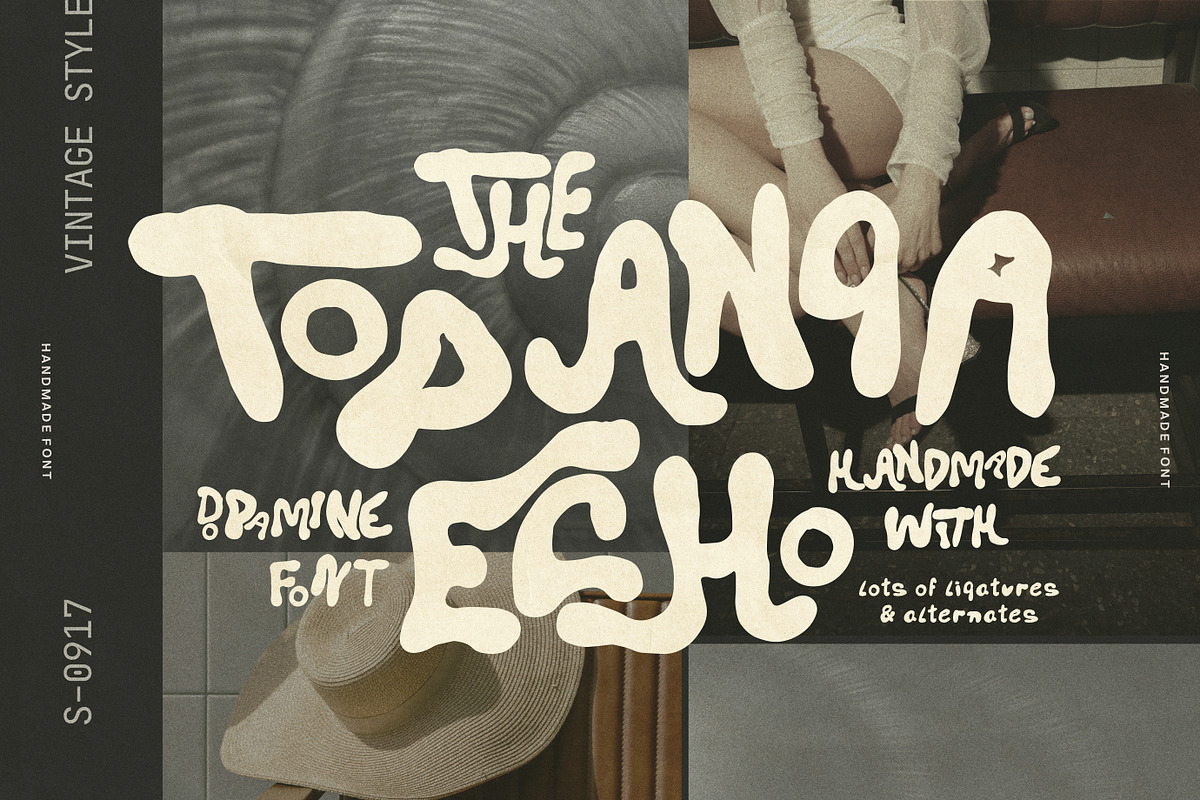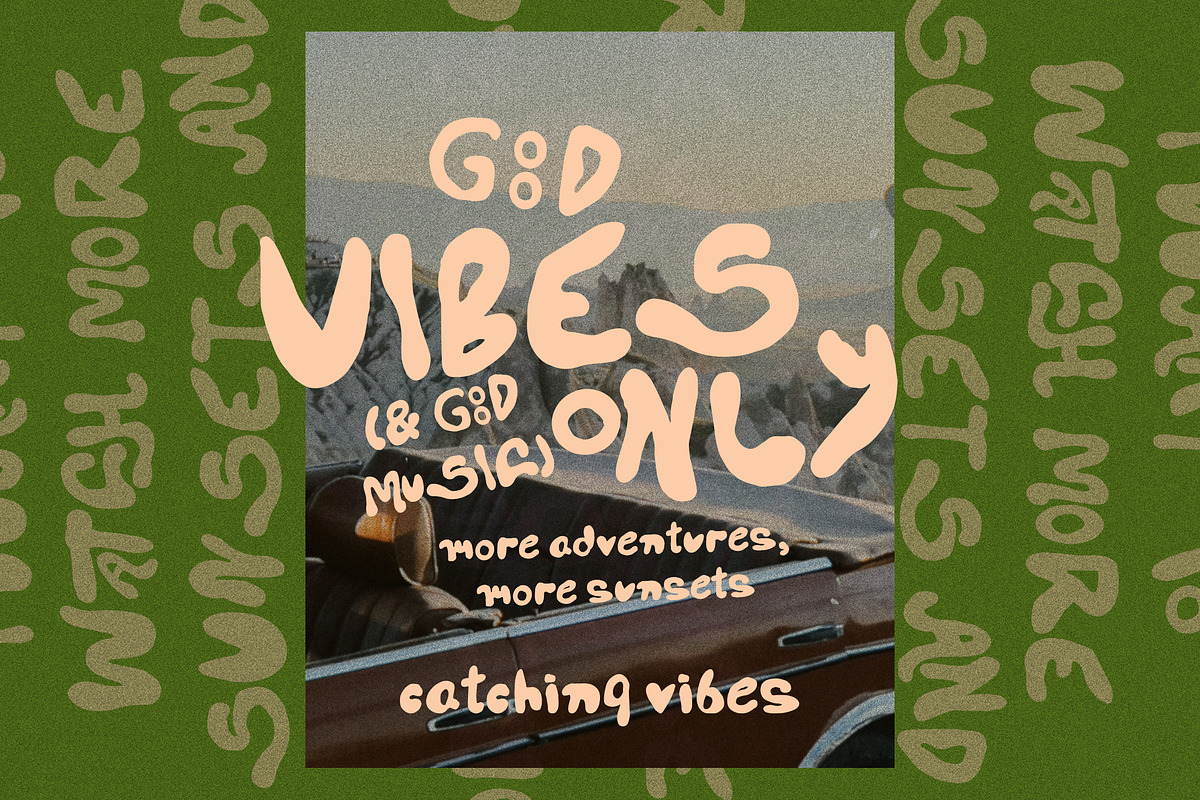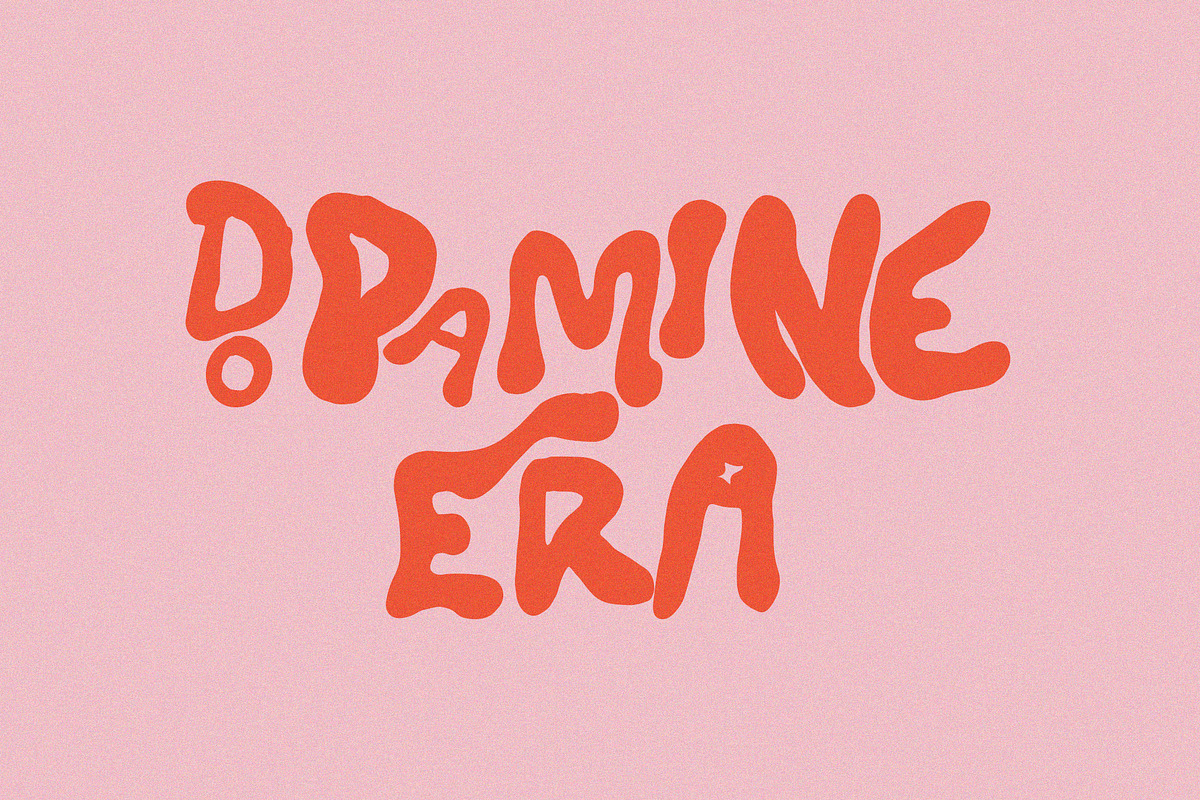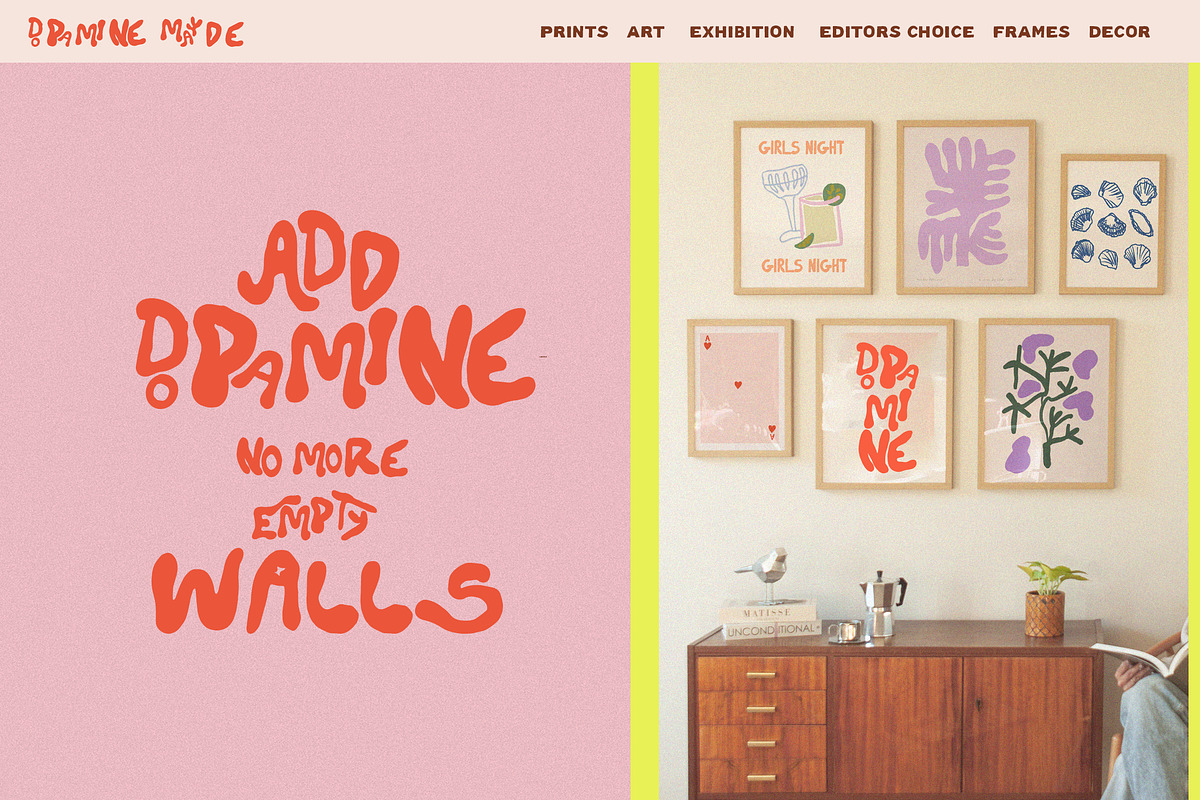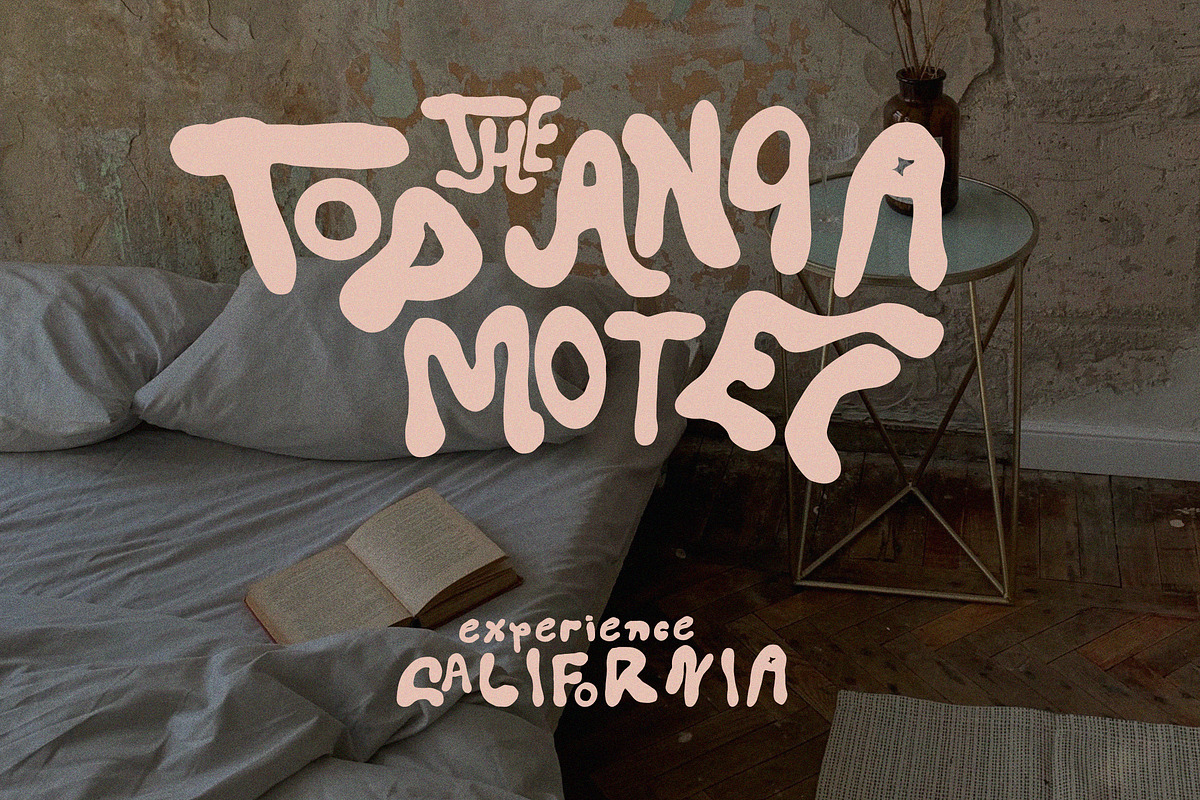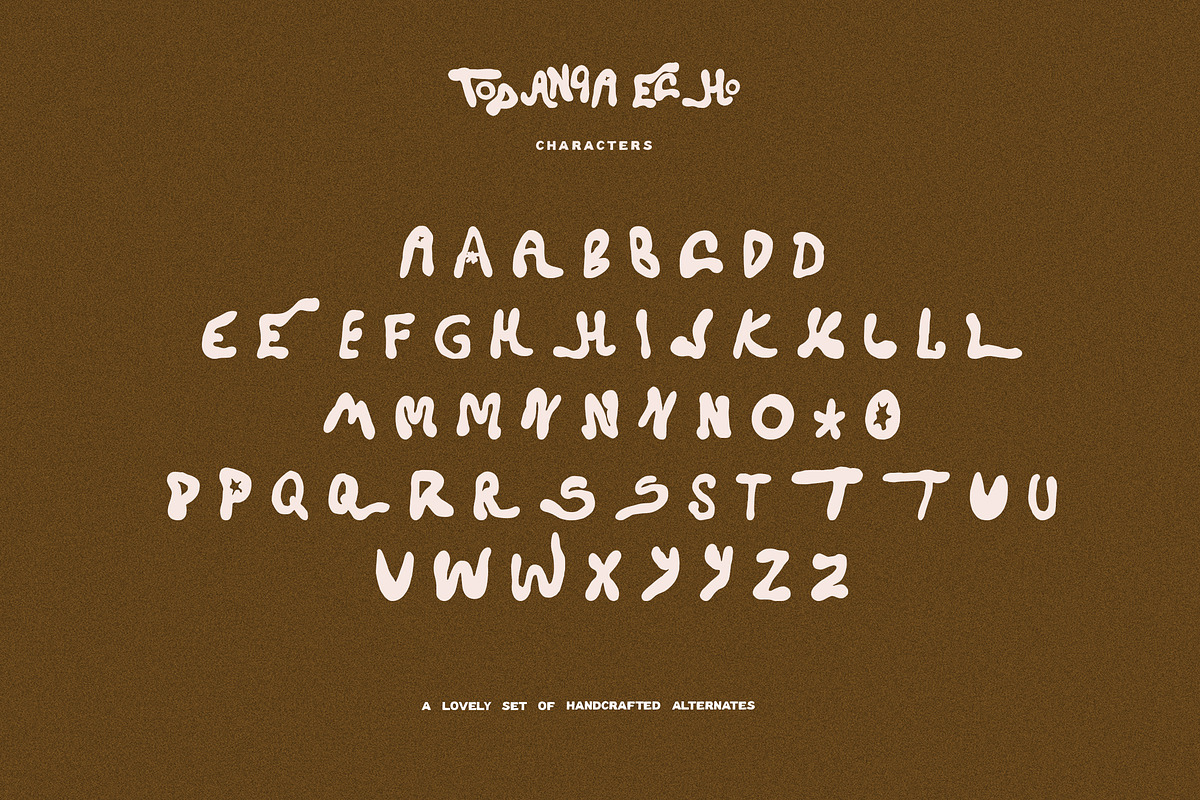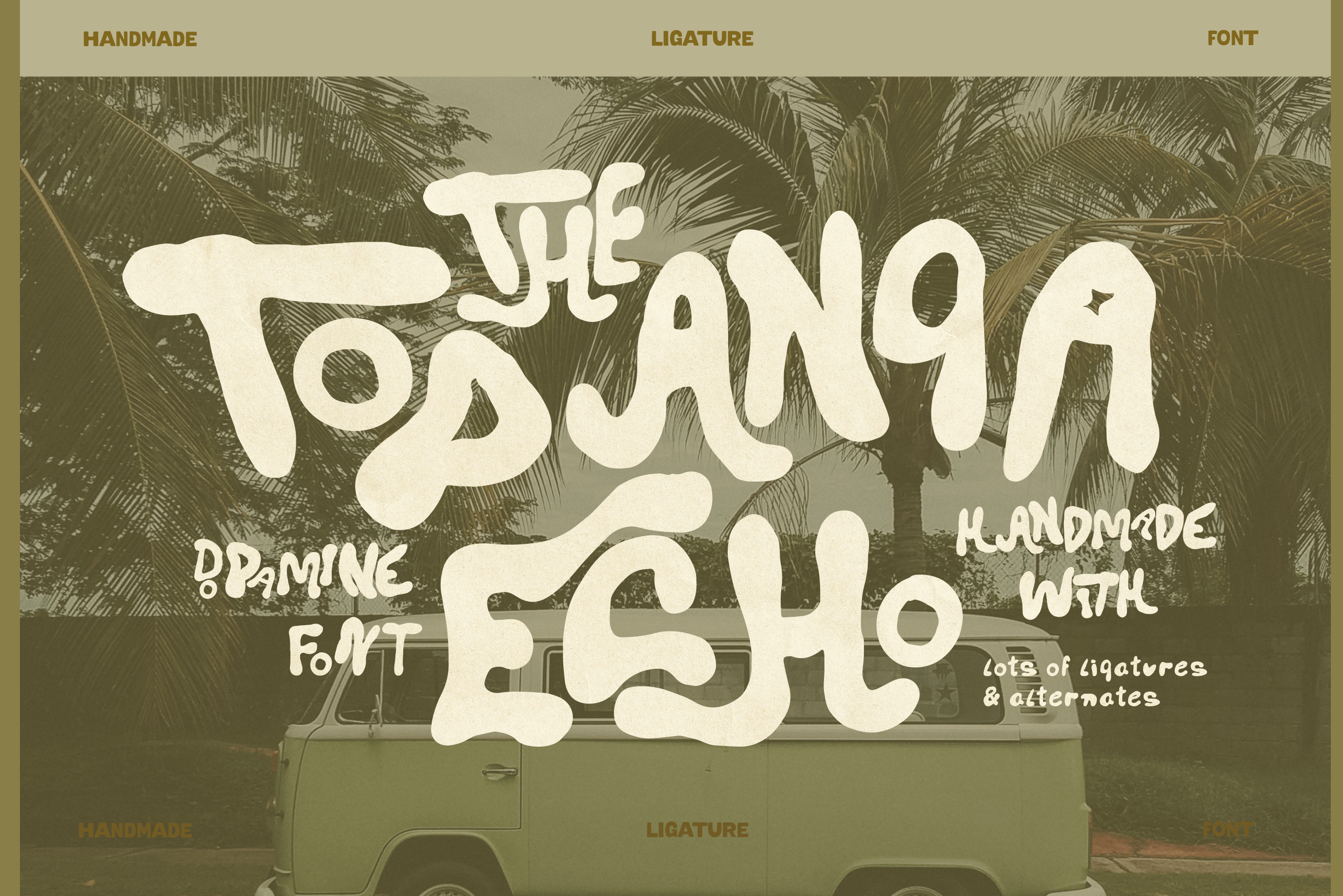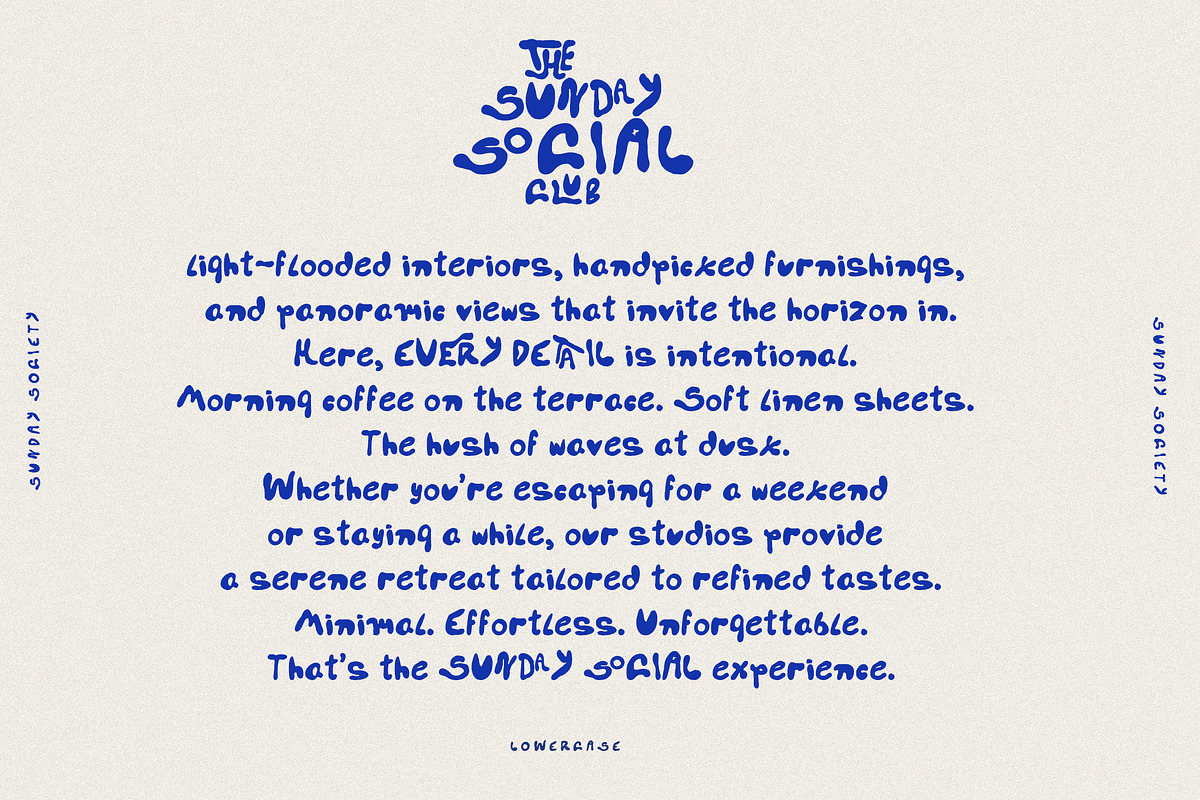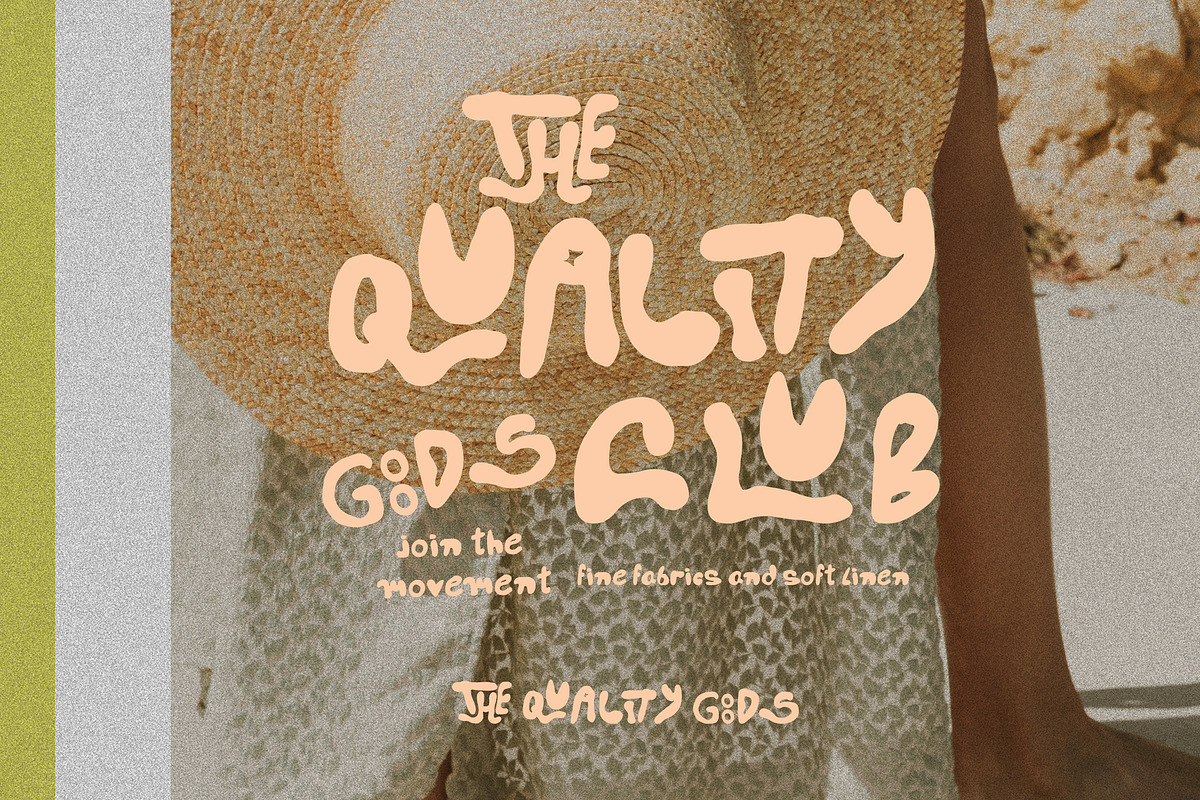
Bold Handwritten Dopamine Font
An ode to my favorite place - Topanga Echo is a typeface born from canyon air, vintage record sleeves, and sun-bleached afternoons along the California coast. Magically turn all your designs into something hand-lettered in seconds, using the quirky ligatures.
Inspired by the groovy energy of the 60s and 70s, it brings the dopamine decor trend to your designs with playful charm and feel-good retro flair. With soft curves and bold character, it’s made for trendy branding, dreamy posters, California-infused logo designs and whimsy art. The perfectly trendy upgrade for your social media designs and website!
- including tons of discretionary alternates and ligatures to achieve the look from the previews in seconds!